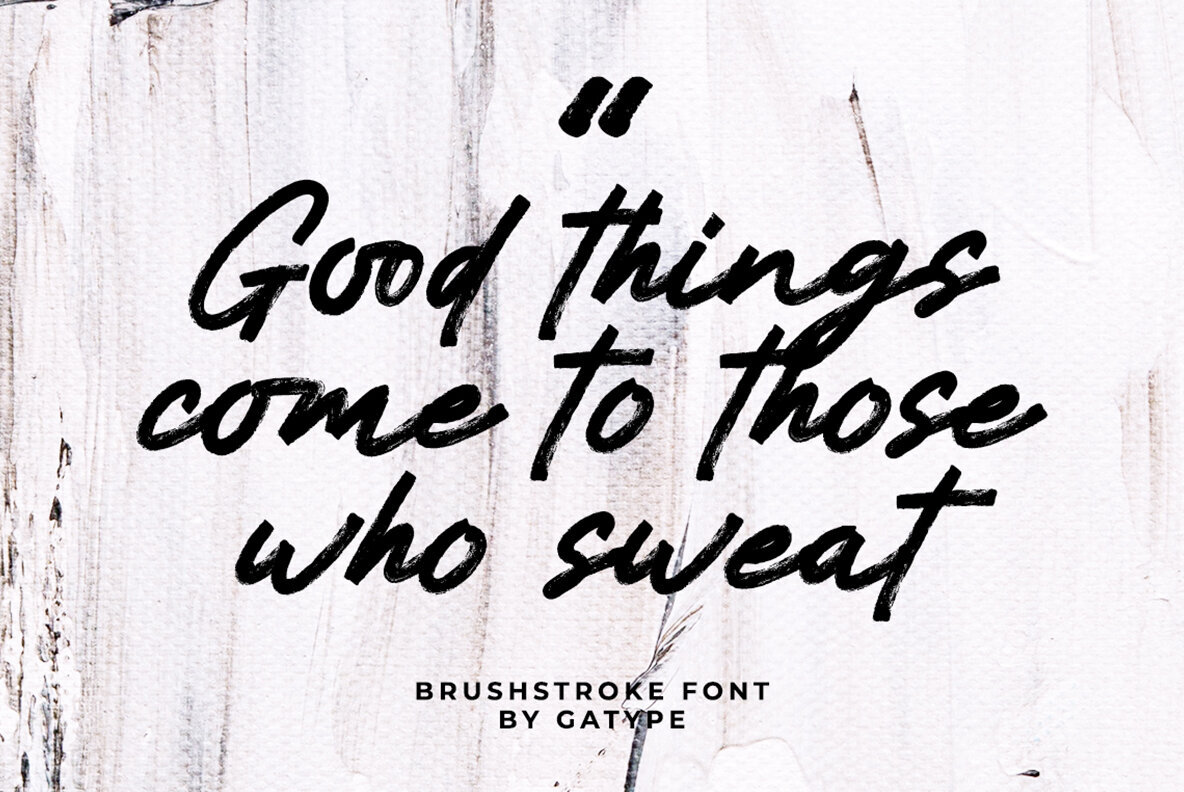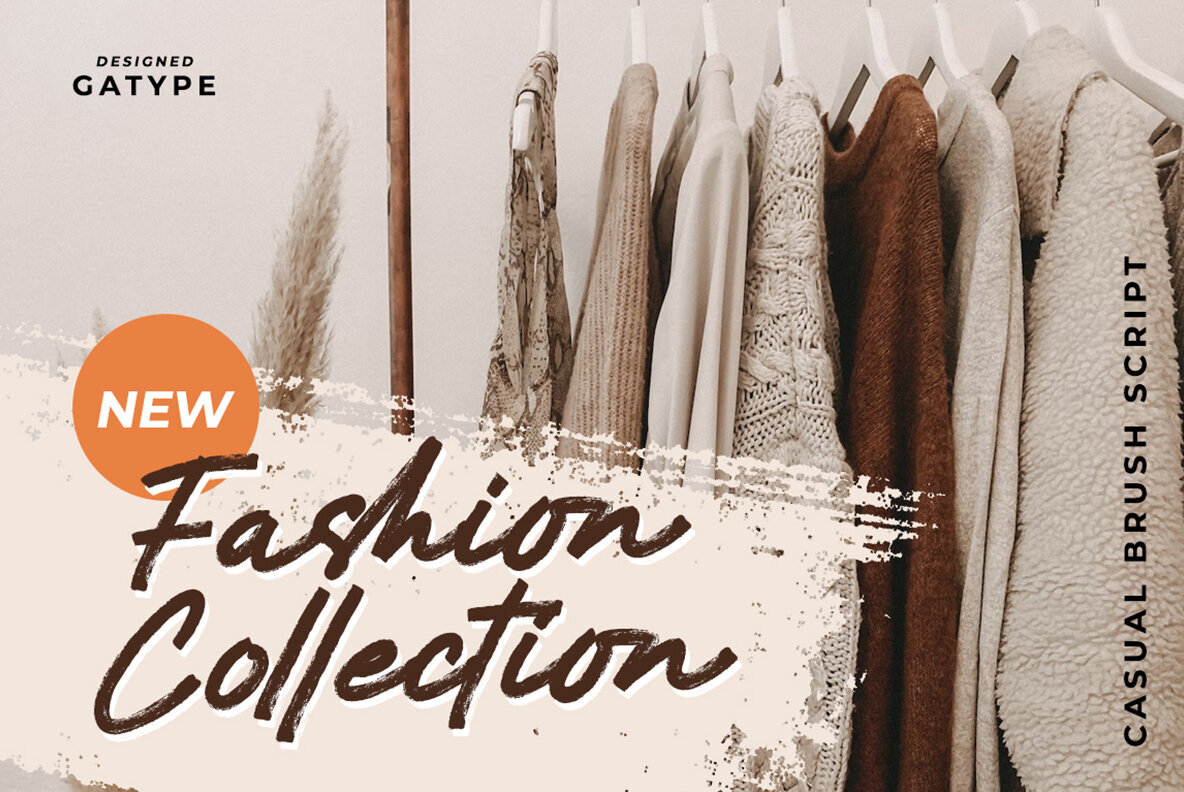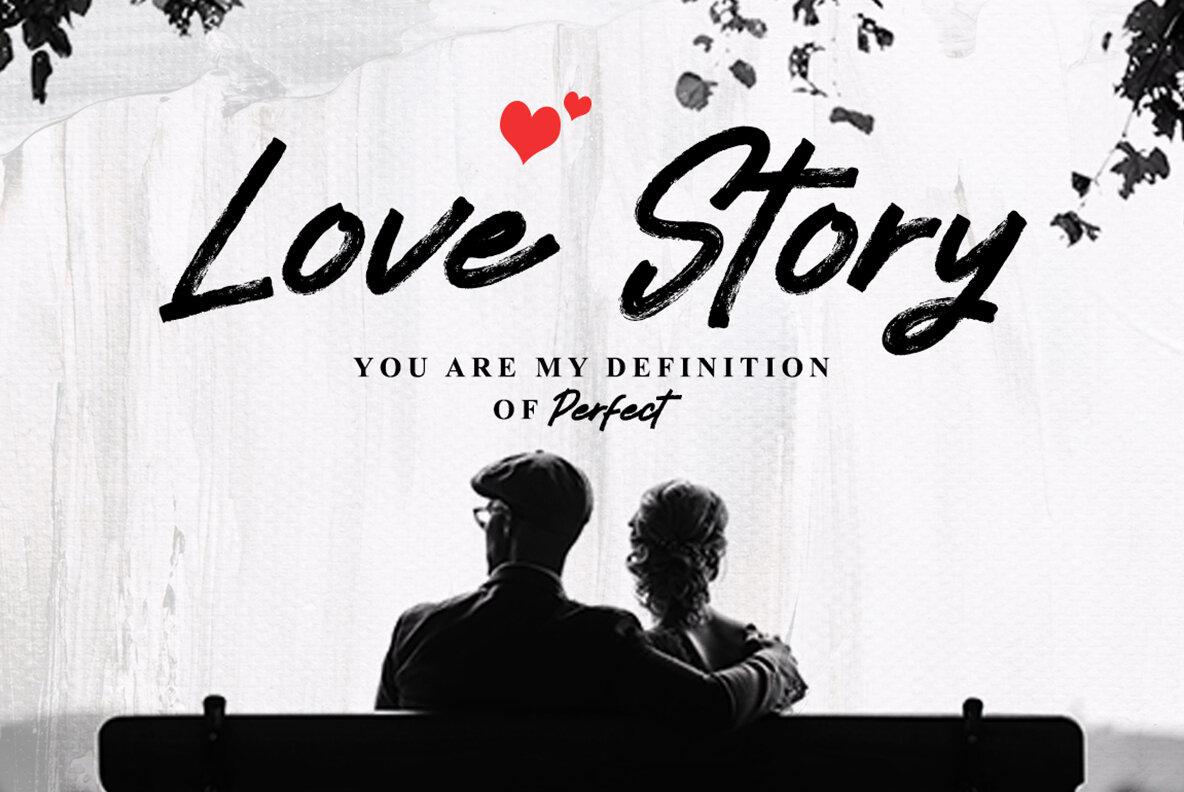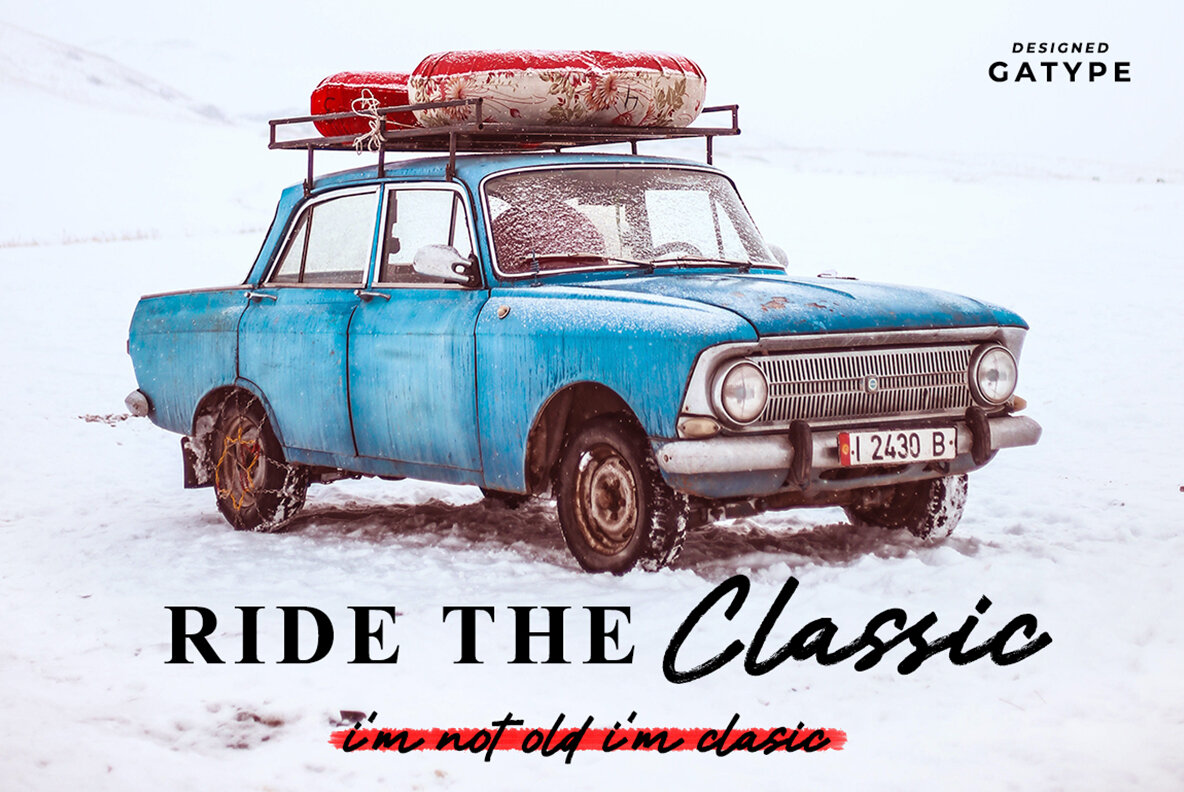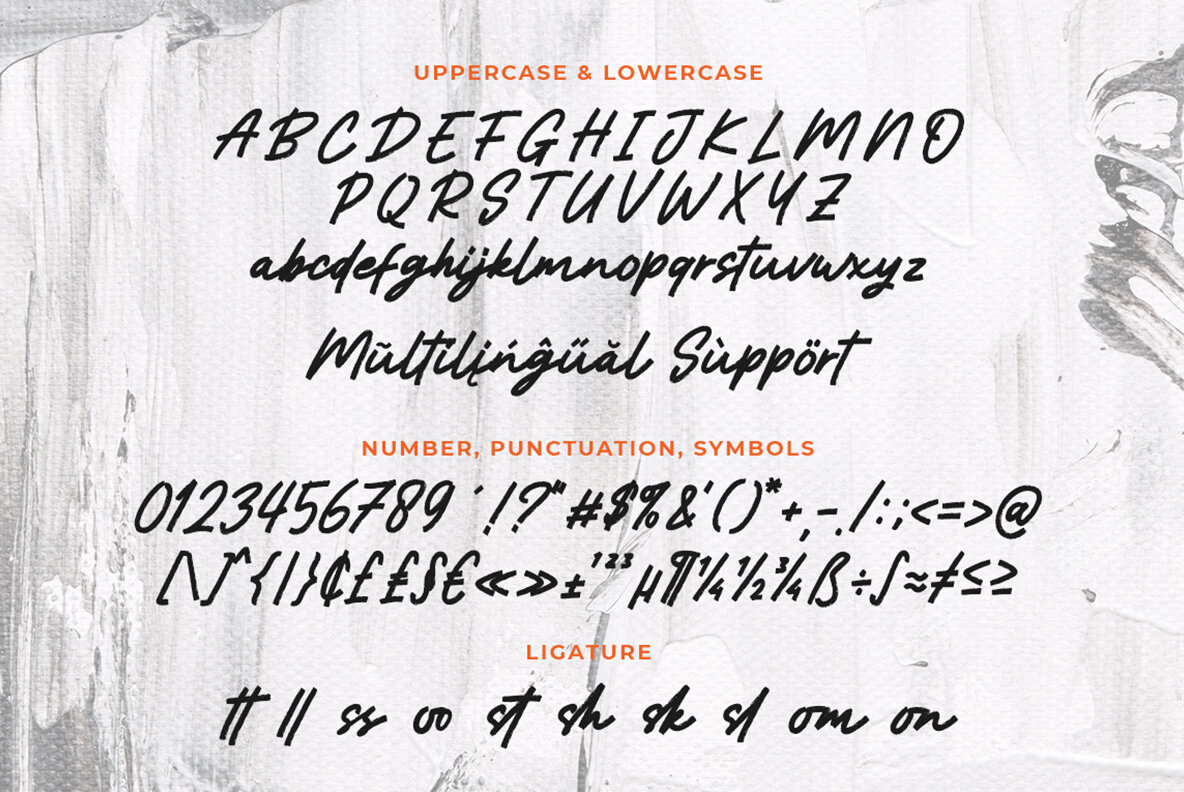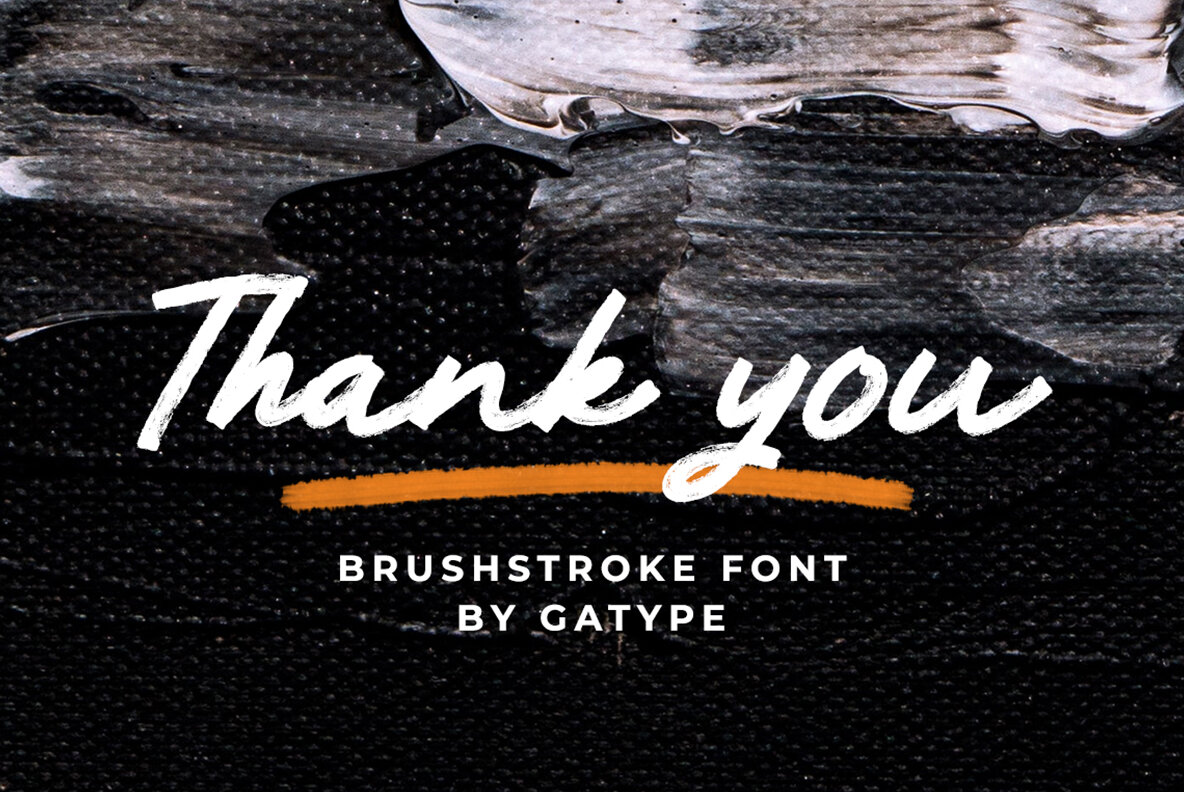
Brushstroke Font
Brushstroke Regular
Brushstroke combines texture and digital precision in a unique brush font. With a contemporary design, it features underlines and several ligatures, enhancing its versatility and appeal for various projects. This font is ideal for titling and can be effectively used in:Brushstroke: A Digitally Crafted Textured Brush Font